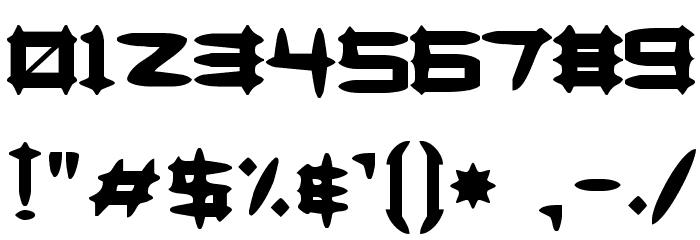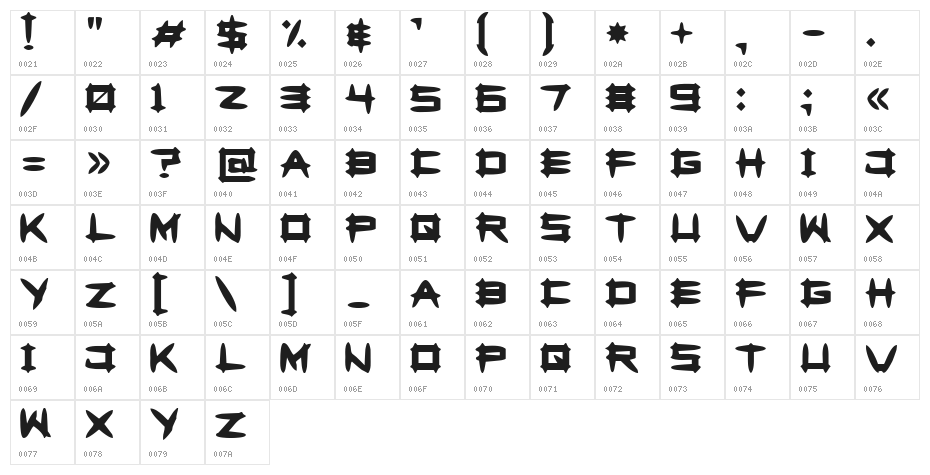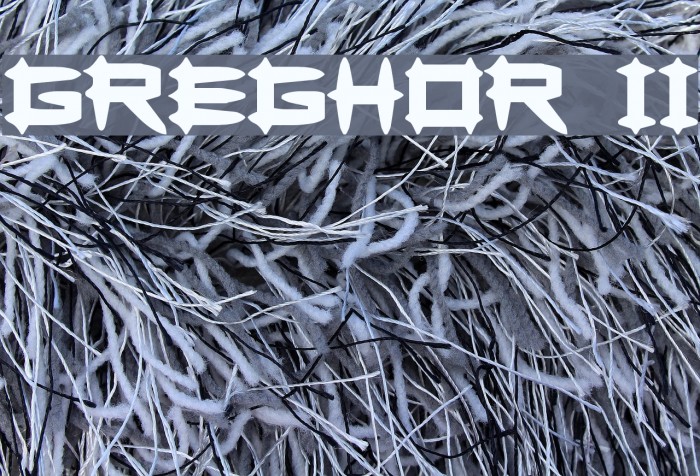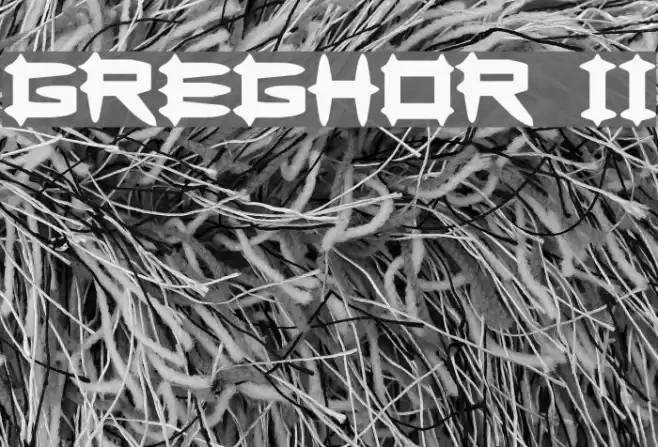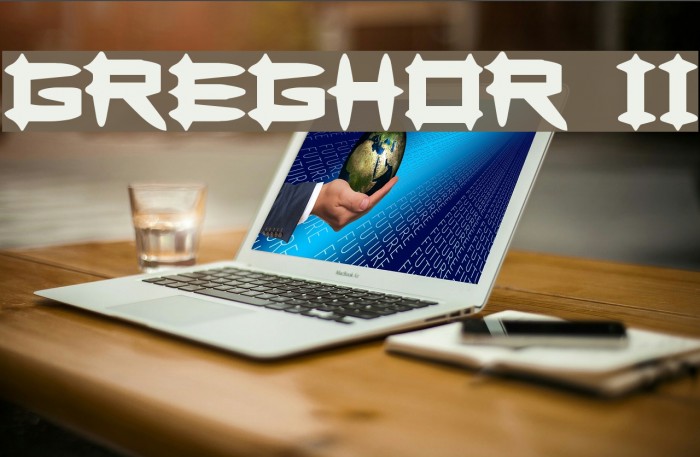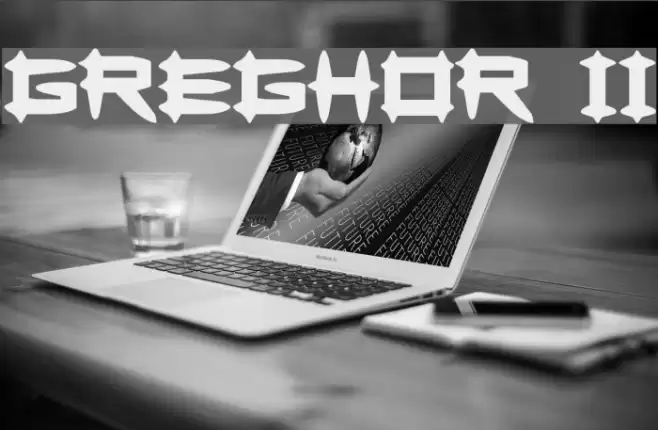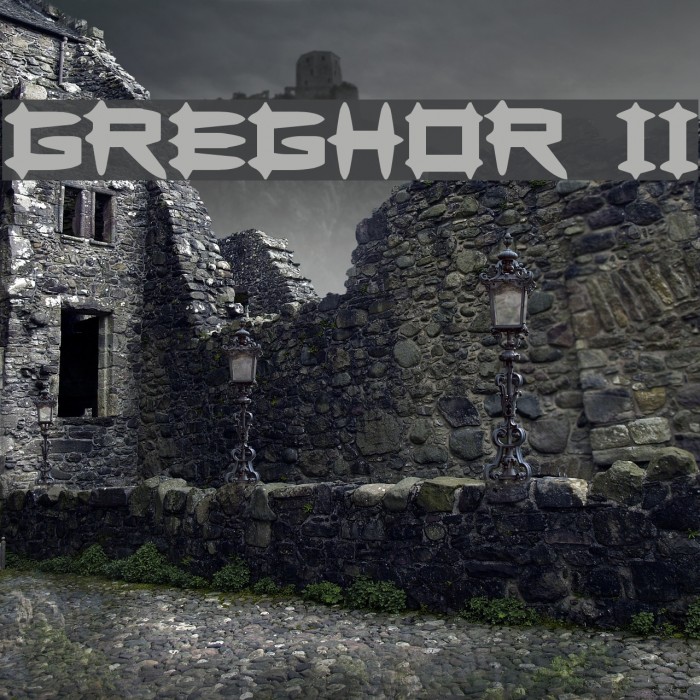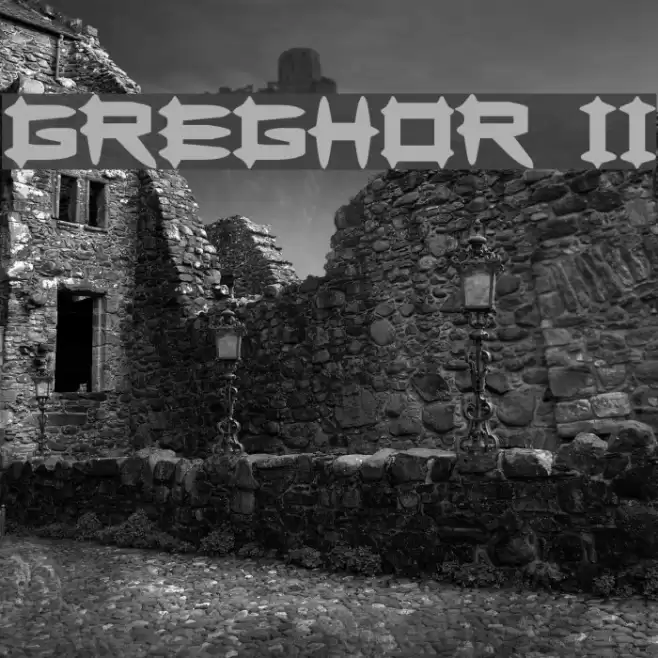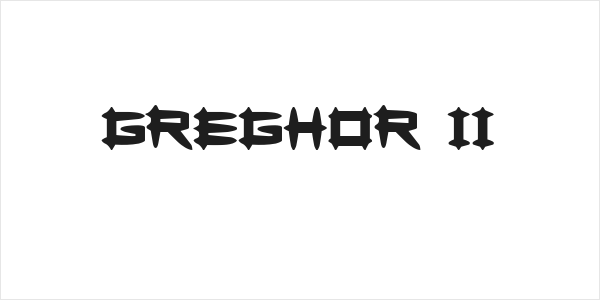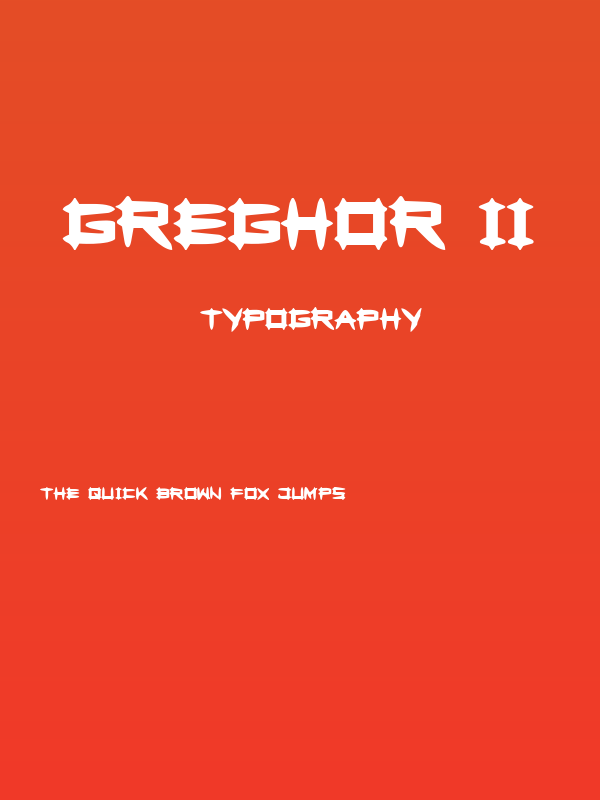
Greghor II Font
Greghor II Description
This font features a bold and edgy design with sharp, angular lines and pointed edges, giving it a distinctly aggressive and modern appearance. The uppercase and lowercase letters maintain a consistent style, with each character exhibiting a unique, almost tribal aesthetic. The numerals and special characters follow the same design principles, ensuring a cohesive look across all glyphs. The font's boldness and unique style make it stand out, making it suitable for projects that require a strong visual impact.
| Overall Style | Modern, Aggressive, Edgy |
| Proposed Projects | Ideal for branding, posters, album covers, and any project needing a bold, impactful typeface. |